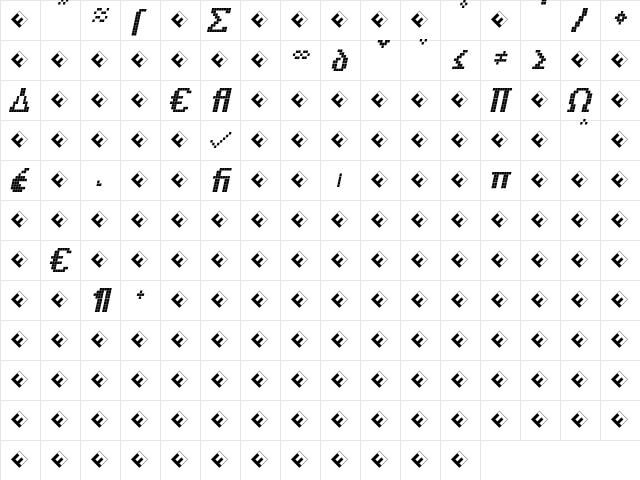
CallThree-ItalicExp Regular
Design Context for CallThree-ItalicExp Typeface
CallThree-ItalicExp is a composed and adaptable typeface that performs quietly and consistently across a wide range of design contexts. The slanted form adds forward momentum and visual energy.
Pro Tip: Try CallThree-ItalicExp for annotation and caption copy alongside an upright companion — the contrast in angle creates a dynamic but ordered typographic system.